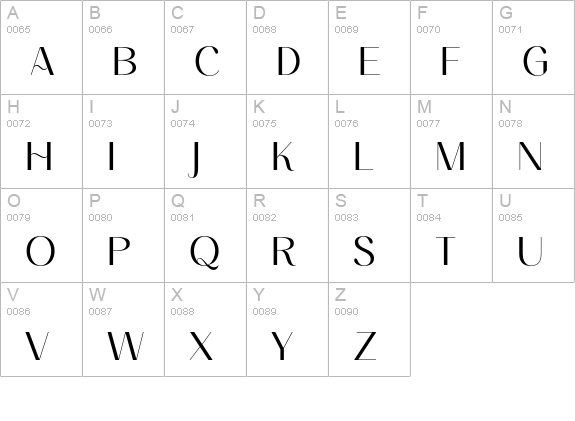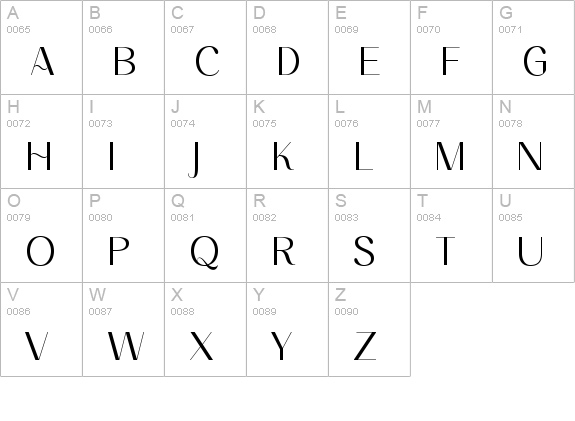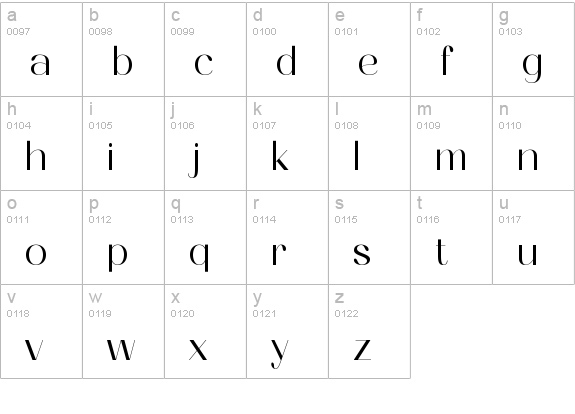
Ameda is a demo font in the Fancy > Feminine category, designed by craftsupplyco. It has been downloaded 80 times and is available for Windows, Mac and Linux.
Ameda font is a stunning display typeface that exudes elegance and sophistication. With its unique blend of modern and classic design elements, Ameda is perfect for creating eye-catching headlines, logos, and branding materials. The sleek lines and graceful curves of this font make it stand out from the crowd and give your projects a touch of refinement.